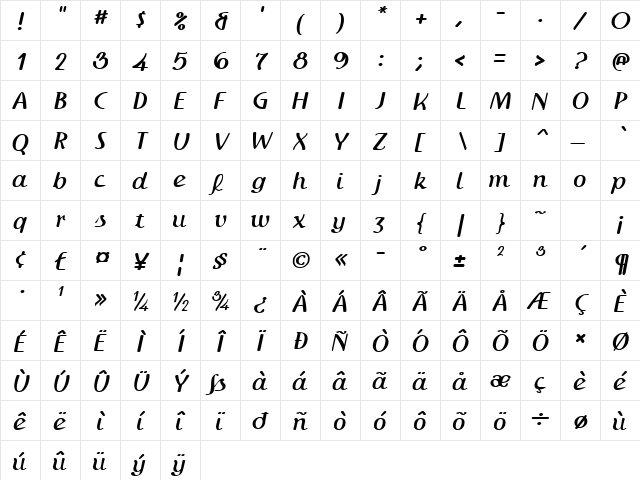
IngrianaCasual Bold Italic
Design Context for IngrianaCasual Typeface
IngrianaCasual is a composed and adaptable typeface that performs quietly and consistently across a wide range of design contexts. Its italic angle brings a sense of urgency and motion to the letterforms. Its bold stroke weight gives it real presence on the page.
Pro Tip: Use IngrianaCasual for emphasis, pull quotes, and subheadings where its slanted energy can add rhythm to the layout.